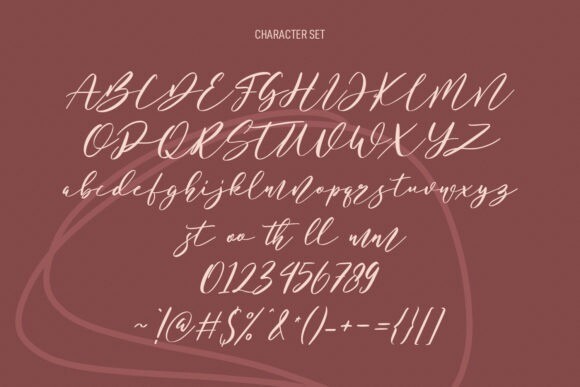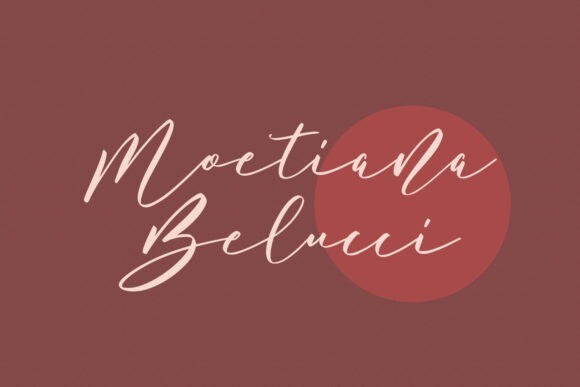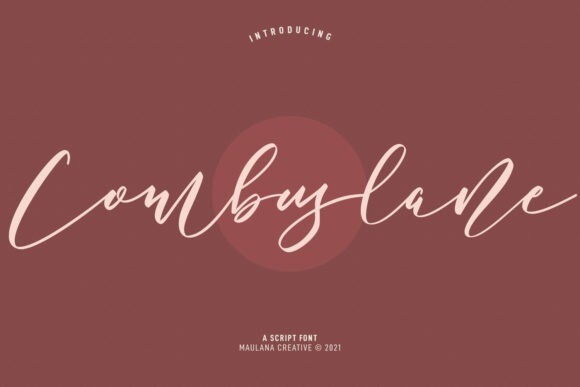
Combuslane Font
Combuslane Font is a luxurious handwritten font, masterfully designed to become a true favorite. It maintains its classy calligraphic influences while feeling contemporary and fresh. Fall in love with it and bring your projects to the highest levels!